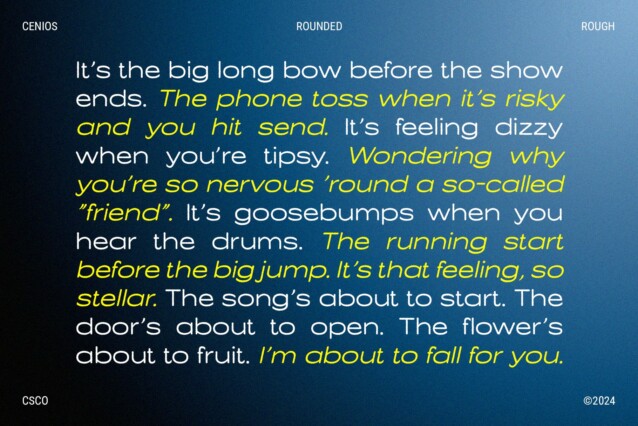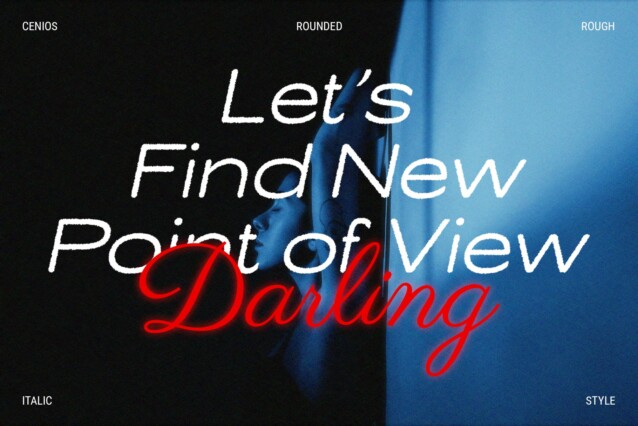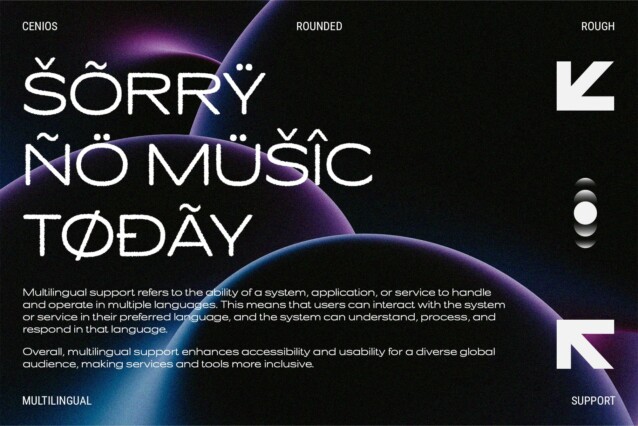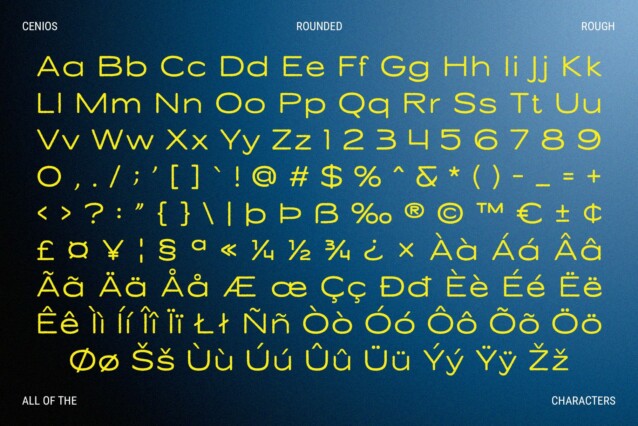
Cenios Rounded Rough Font
Cenios Rounded Rough Font is a modern sans-serif font distinguished by its rounded and expanded letterforms. The rounded shapes provide a friendly, approachable feel, enhancing readability with their soft, curved design. The expanded form increases letter width, improving visibility and making the text stand out in various applications.